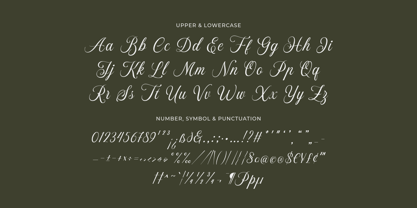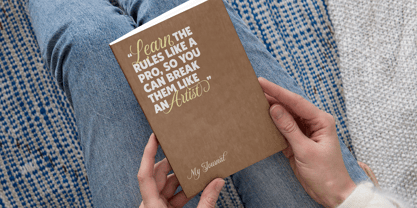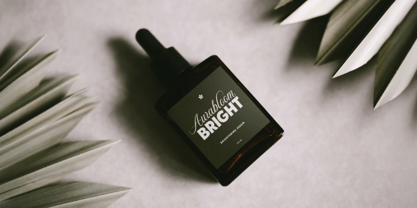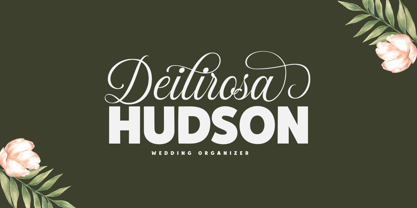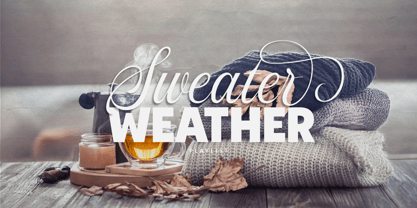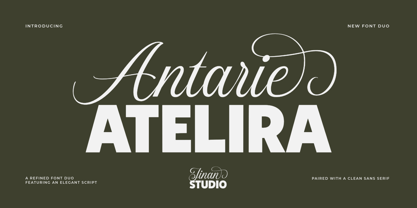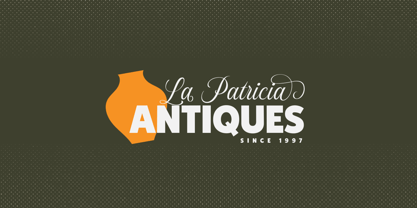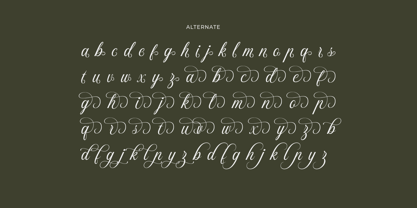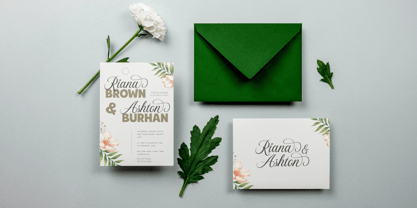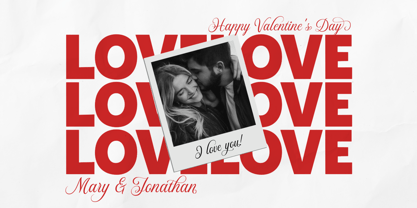
Antarie Atelira
The Antarie Atelira Font Family was designed by Andi Syahdang, Ainun Jinan and published by Jinan Studio. Antarie Atelira contains 2 styles and family package options.
Antique Atelier is an elegant font duo combining a graceful script with a bold, clean sans serif. Designed for timeless and professional layouts, this pairing creates beautiful contrast and balance. Perfect for logos, branding, packaging, invitations, editorials, and premium design projects, Antique Atelier brings a classic yet modern feel to any creative work. Features A set of uppercase and lowercase glyphs (allcaps sans version) Number, symbol, and punctuation Multilingual Support Alternates (script version)